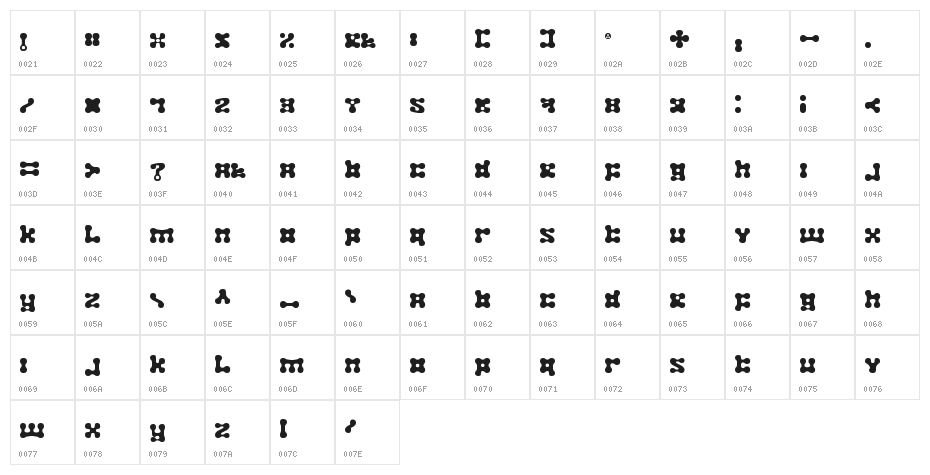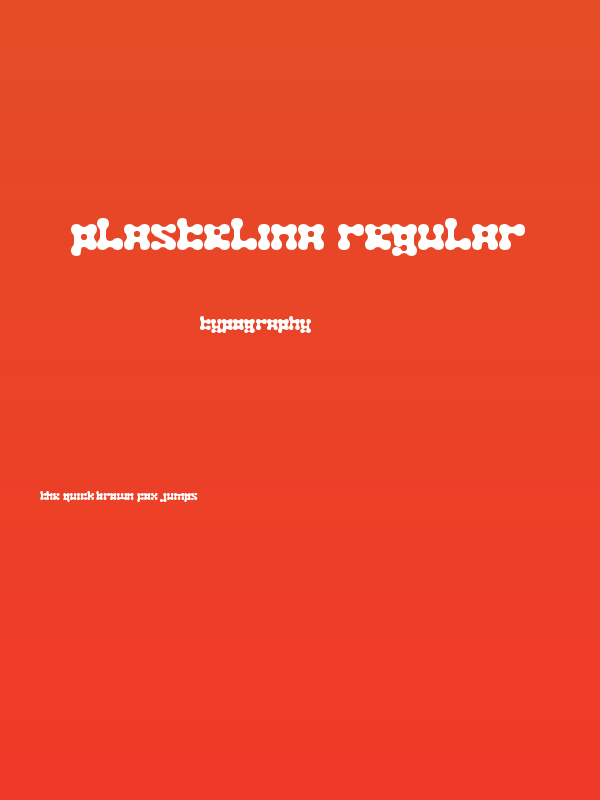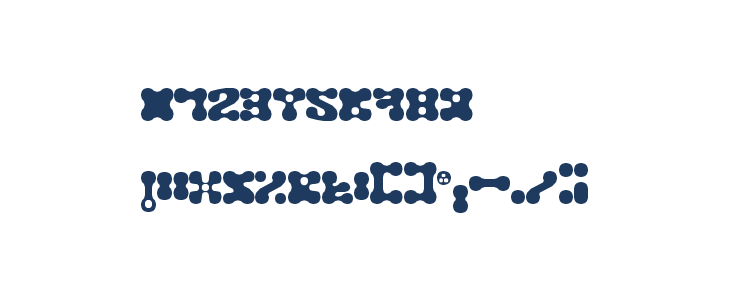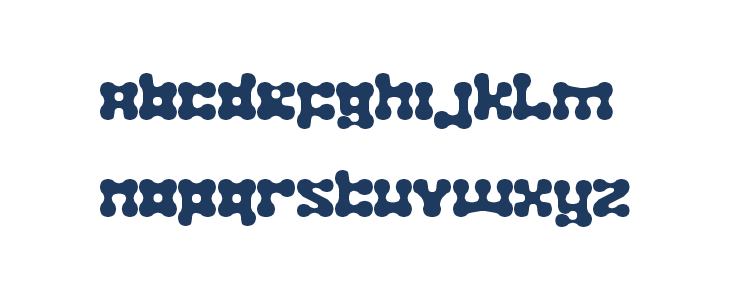
Plastelina Regular Font
Plastelina Regular Description
This font features a playful and bold design with rounded, blob-like forms that create a unique and eye-catching appearance. The characters are interconnected with smooth curves and thick strokes, giving it a distinctive and organic look. The font's whimsical style makes it stand out, with each letter appearing as if it is molded from soft material. The overall design is consistent across uppercase, lowercase, numbers, and special characters, maintaining its cohesive and artistic flair.